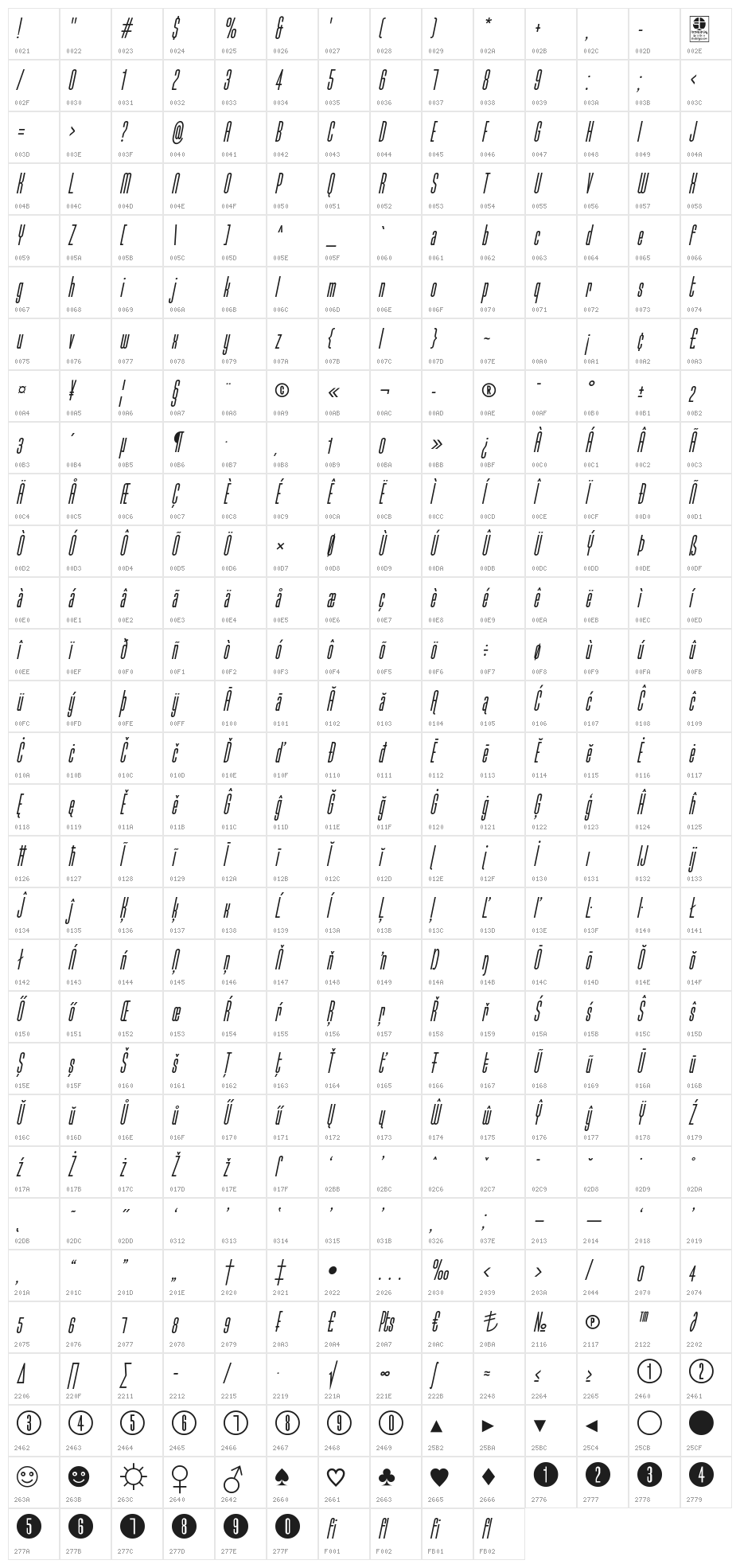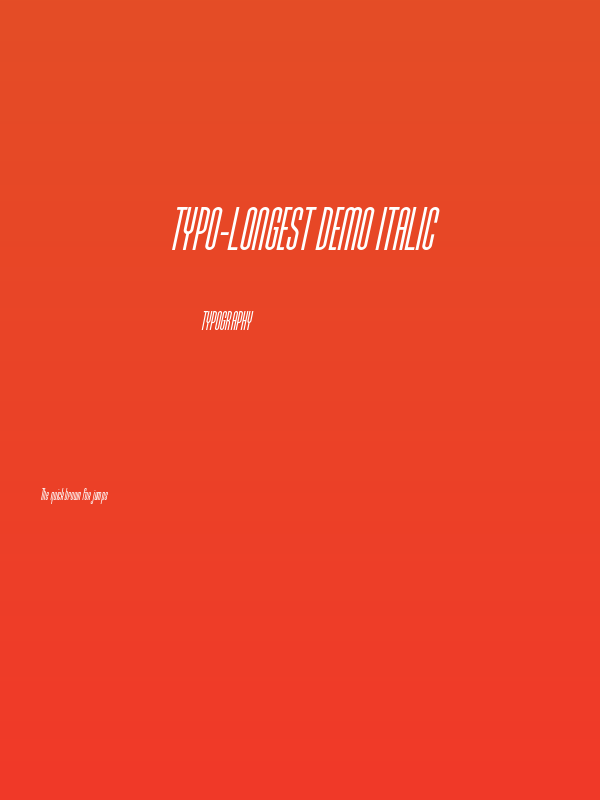
Typo-Longest Demo Italic Font
Typo-Longest Demo Italic Description
This font features a sleek, elongated design with a distinct italic slant, giving it a dynamic and modern appearance. The characters are narrow and tall, with consistent stroke widths that convey a sense of elegance and sophistication. The uppercase and lowercase letters maintain a cohesive style, while the numerals and special characters integrate seamlessly into the overall design. The font's italic nature adds a sense of movement, making it suitable for projects that require a contemporary and stylish touch.
| Proposed Projects | Ideal for fashion branding, modern advertising, dynamic posters, and stylish editorial design. |